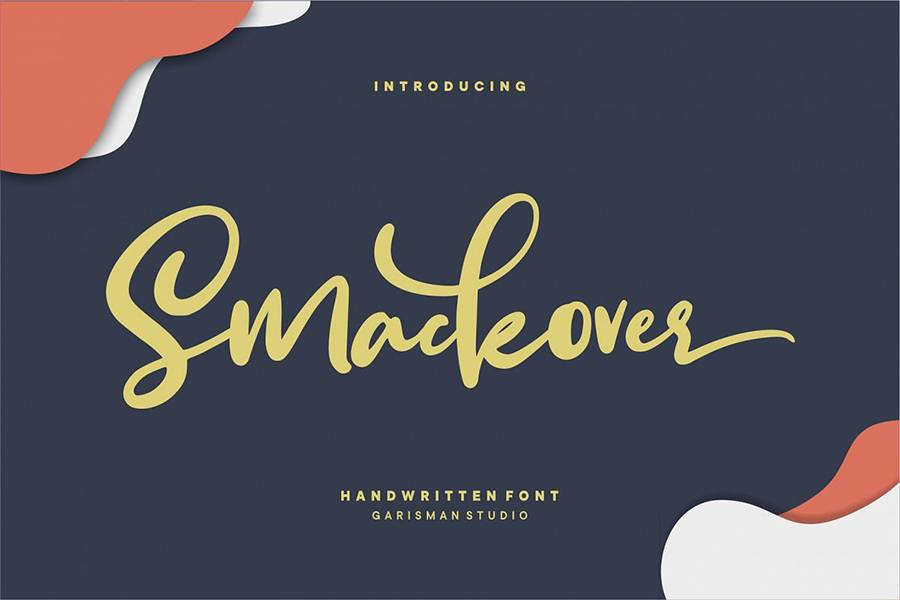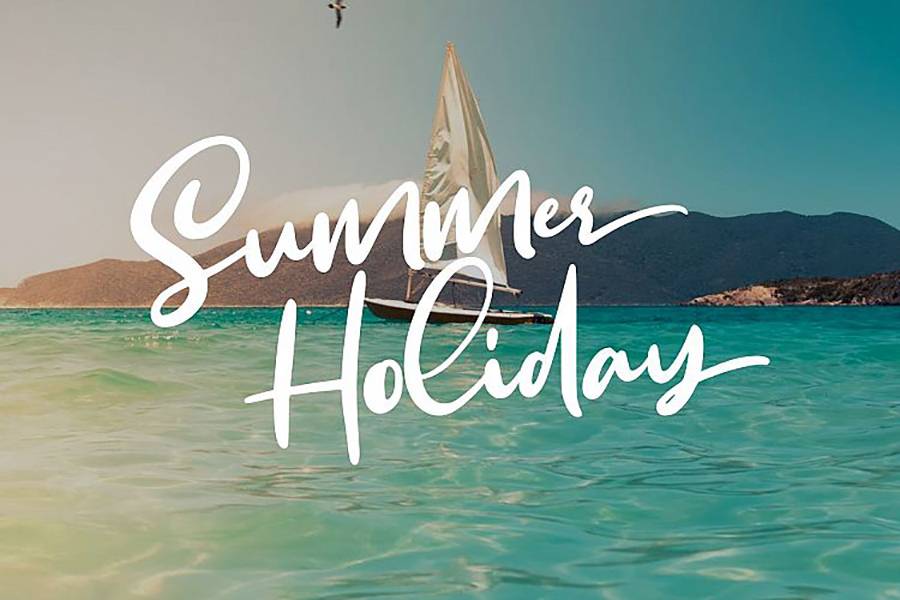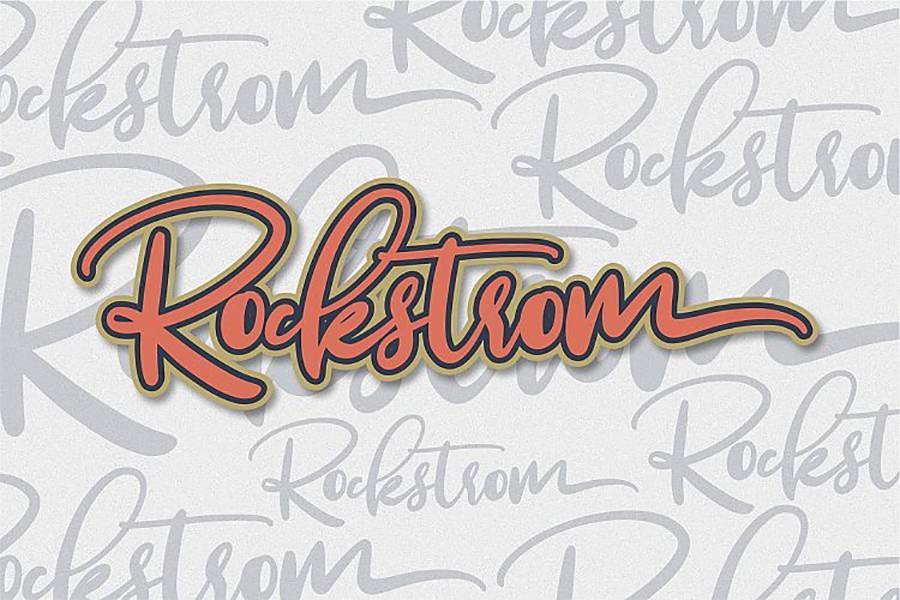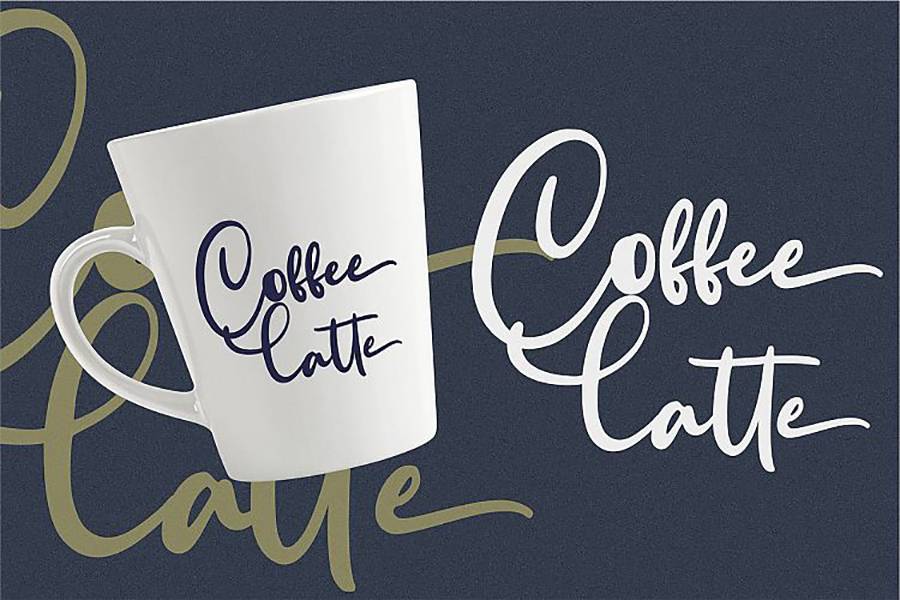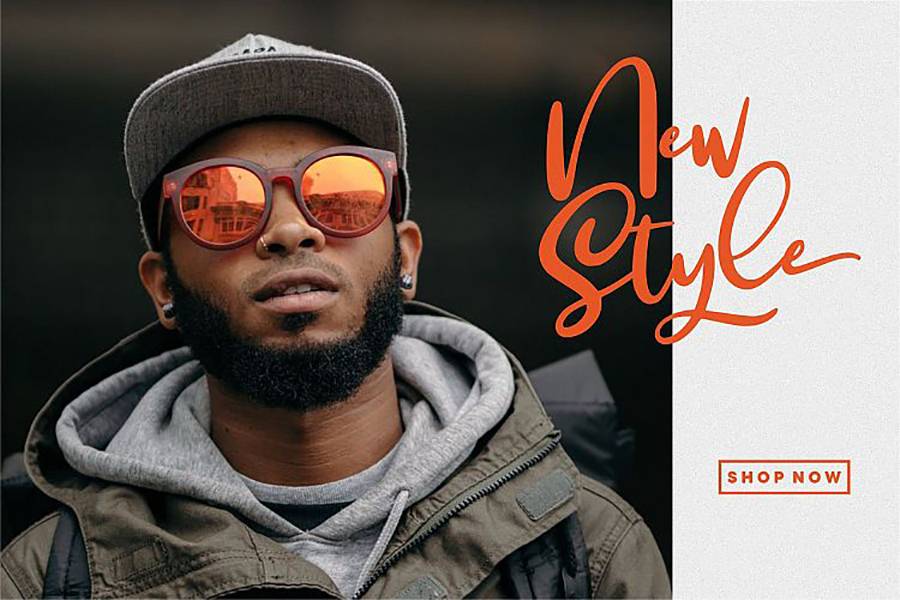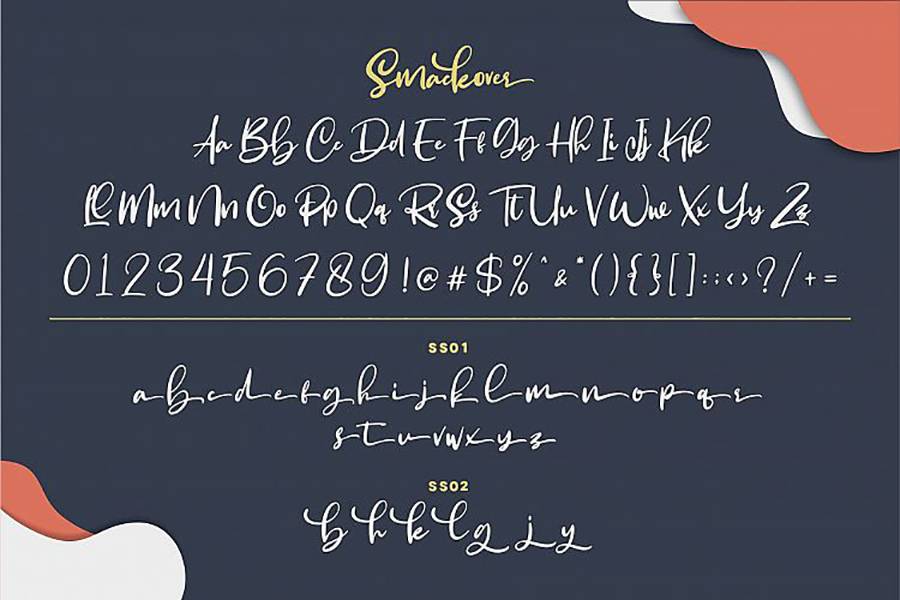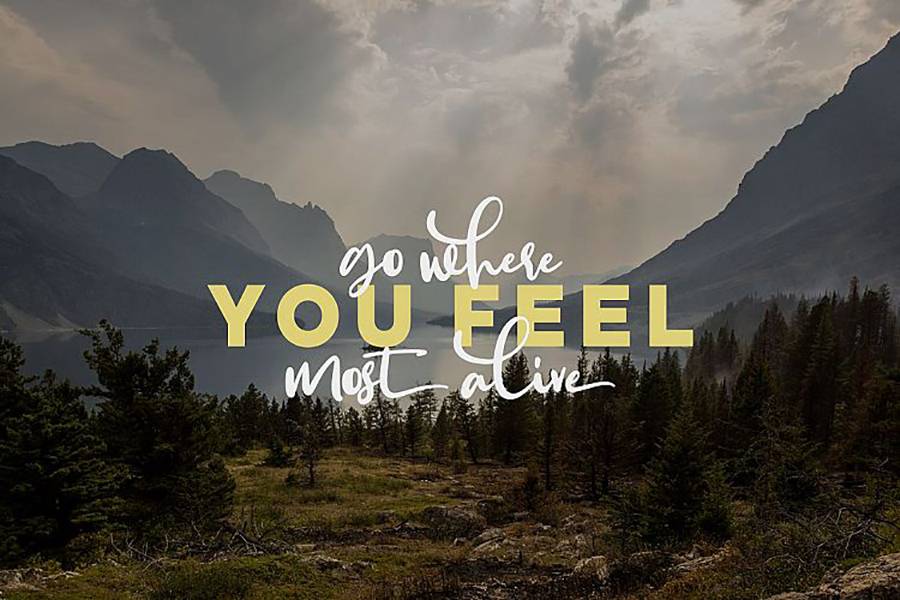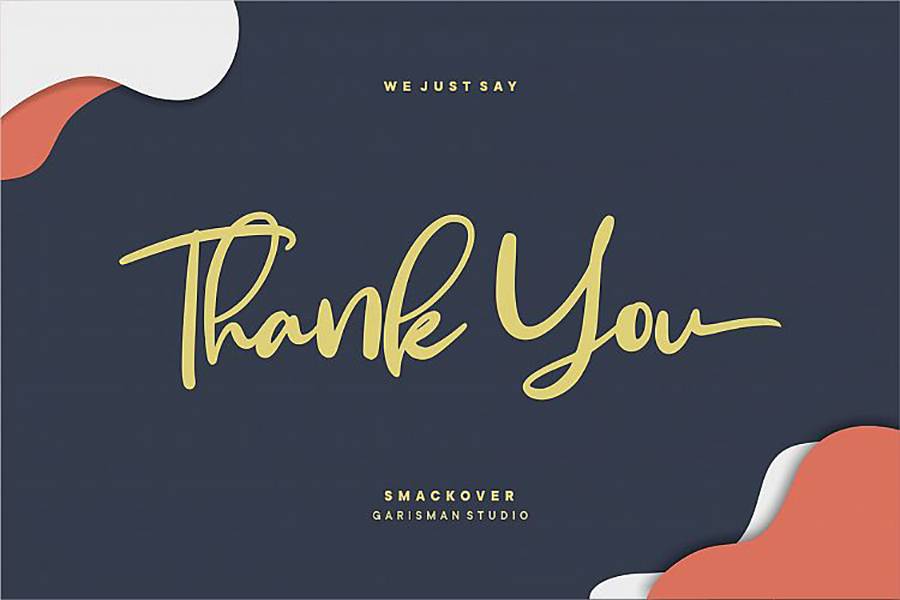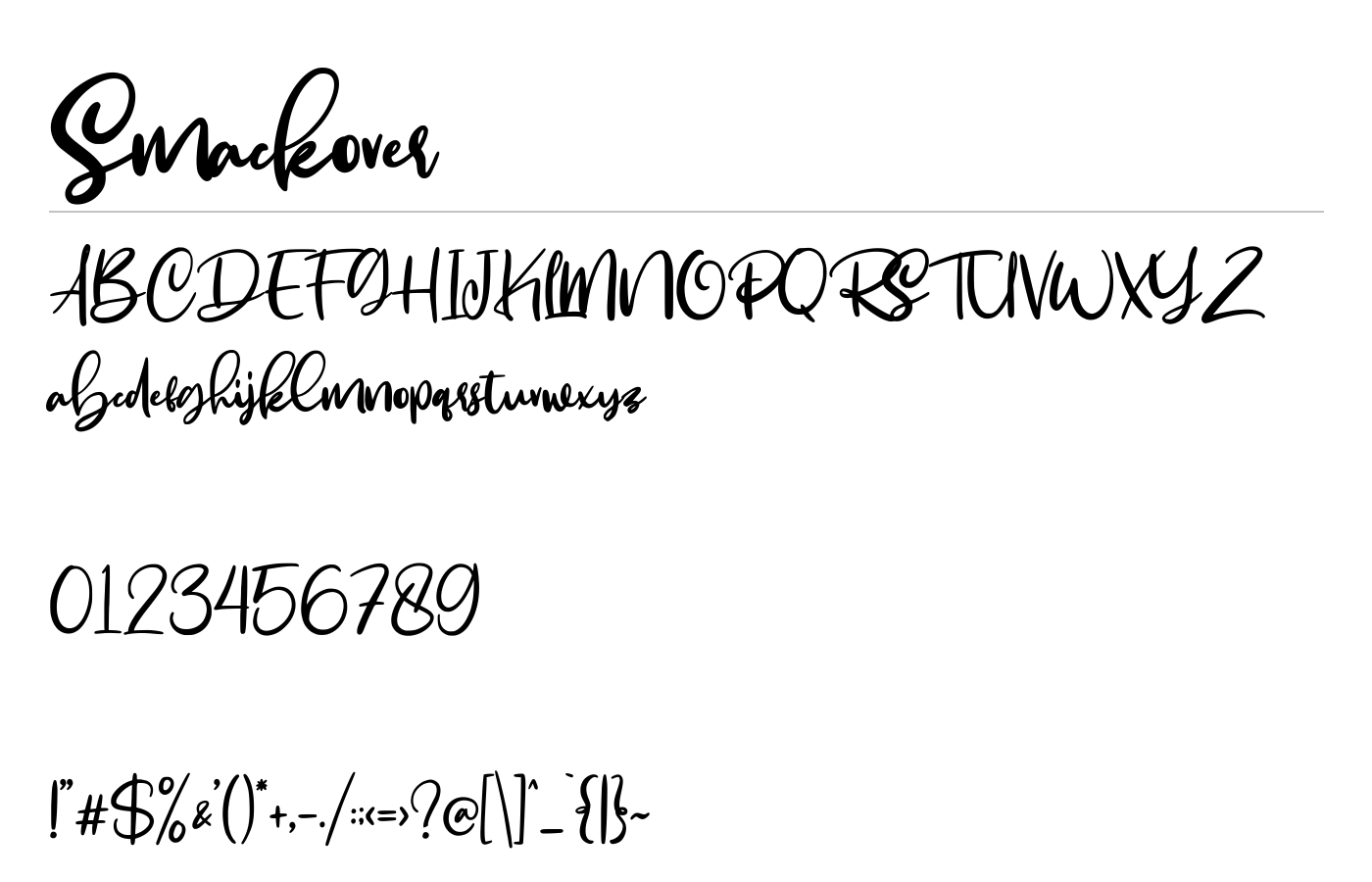
Smackover Handwritten is a lively and charming script font that mimics natural handwriting with smooth, flowing strokes and a casual yet elegant feel. Its medium weight and slightly tall x-height make it highly readable while maintaining a playful and personal touch, perfect for adding warmth and personality to branding, invitations, and creative projects. This font works well for logos, packaging, and headlines where a friendly and approachable style is desired.